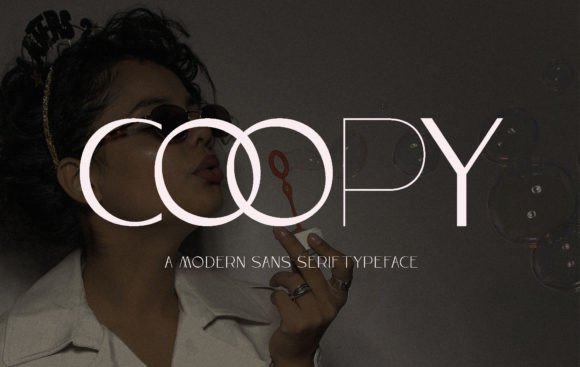
Introducing Coopy Font! This captivating sans serif is bursting with luxury and flair, ready to elevate your designs to new heights. Handcrafted by Ceeskiiw, Coopy is the ultimate font for vintage-inspired creations.
With Coopy, you'll unlock a world of versatility that knows no bounds. From classic logotypes and unforgettable branding to elegant wedding monograms and enchanting invitations, its charm will leave a lasting impression. Even blog headlines will sizzle with sophistication, captivating your readers with every word.
Prepare to be mesmerized by Coopy's timeless beauty and effortless versatility. Each character is a masterpiece, intricately designed to evoke memories of a bygone era. Let the past inspire your future projects as Coopy transports you to a world of vintage elegance.
So, whether you're a creative visionary seeking to leave an unforgettable mark or a passionate designer longing for a touch of nostalgia, Coopy Font is your artistic soulmate. Embrace its allure and watch as your creations blossom into breathtaking expressions of timeless style.